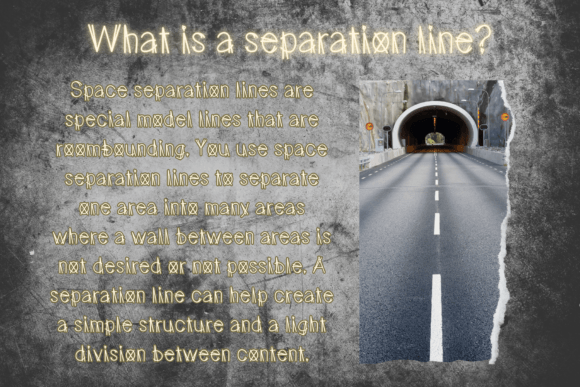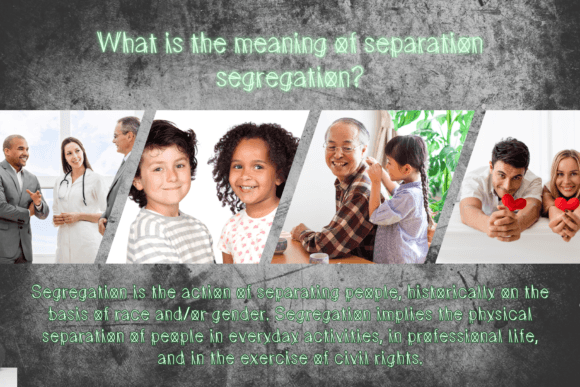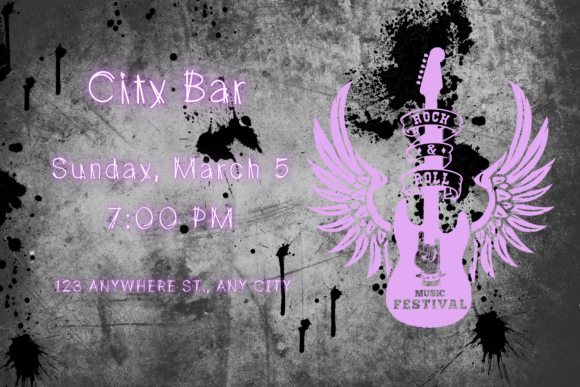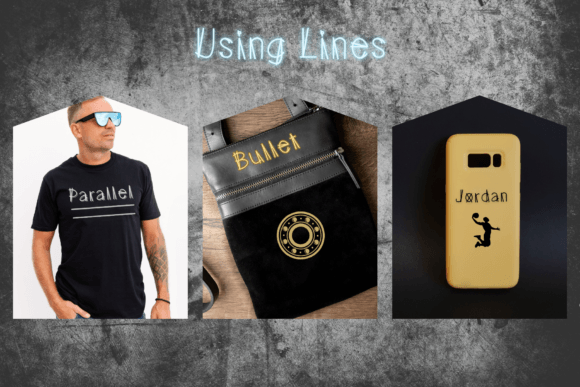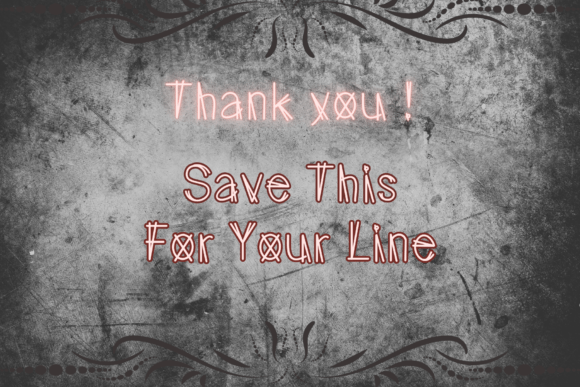
Introduction to Separation Line Font
Have you ever found yourself lost in the mesmerizing colors of a rainbow, only to be drawn to the delicate lines that separate each hue? That’s exactly where the inspiration for the Separation Line Font began. The creator of this unique font was captivated by the intricate beauty of these dividing lines, and envisioned a way to transform them into a design resource that would bring a touch of elegance to any creative project.
As a valuable design resource, the Separation Line Font offers a high-quality, transparent background that can be easily integrated into various design elements, from logos to typography. With its distinctive style, this font is sure to elevate any design and provide a touch of sophistication. And the best part? It’s available for a free download, making it an accessible resource for designers of all levels.
- Unique, modern design aesthetic that can add a touch of sophistication to any creative project.
Honest Review: Separation Line Font
As a designer, I’m always on the lookout for high-quality design resources to elevate my creative projects. The Separation Line Font is one such resource that caught my attention, and I’m excited to share my honest review with you.
- What works well: ✨ The font is incredibly versatile and can be used for a wide range of applications, from logos to graphics. Its clean and minimalist design makes it perfect for creating visually appealing designs. ✨ The font also comes with a transparent background, making it easy to use in various design scenarios.
- What doesn’t work so well: ⚠️ One of the limitations of this font is that it’s only available for free download, which means it may not be suitable for commercial use. Additionally, the font family is relatively small, so it may not be ideal for large-scale designs.
Overall, I’m impressed with the Separation Line Font. It’s a great design resource for anyone looking to add a touch of elegance to their creative projects. While it has some limitations, its versatility and high quality make it a valuable addition to any designer’s toolkit.
The Separation Line Font is ideal for creating visually appealing separation lines in various creative projects, such as infographics, presentations, and posters. It’s also a great design resource for adding a touch of elegance to your work.